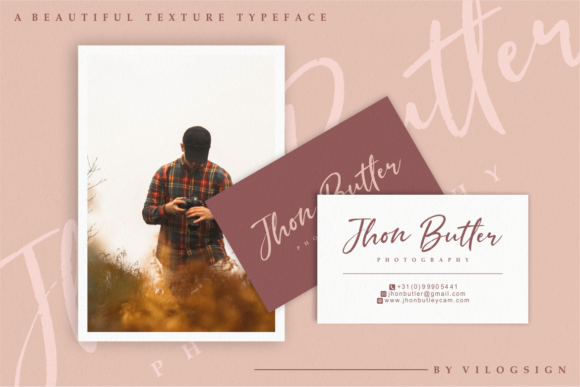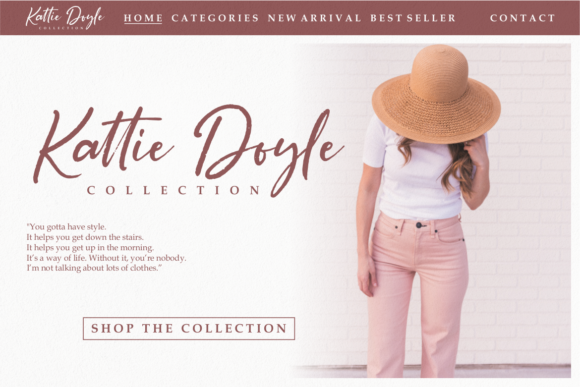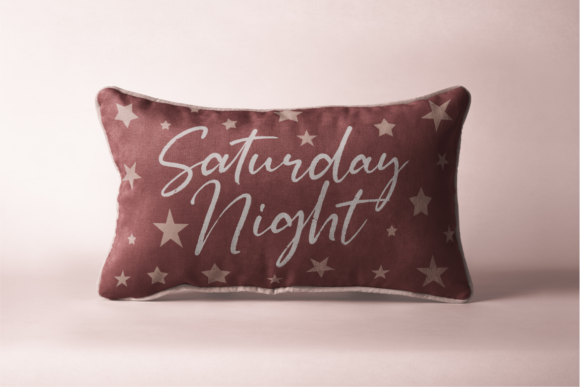
Introduction to Rollando Font
As designers, we’ve all been there – staring at a blank page, trying to find the perfect font to bring our creative project to life. And then, like a breath of fresh air, we stumble upon Rollando Font – a stunning script font that elevates any design to new heights. Inspired by classic typography, Rollando Font brings its own unique style to the table, making it the perfect addition to any high-quality design resource.
Whether you’re working on a print project or a web design, Rollando Font is sure to make a statement. And the best part? It’s available for free download, making it a valuable resource for designers of all levels. With its transparent background, Rollando Font can be easily integrated into any design, from small text blocks to eye-catching headlines. In this article, we’ll delve into the world of Rollando Font and explore why it’s a must-have for any creative project.
Key Features of Rollando Font
- High-quality design for creative projects, available for free download as a design resource.
- Unique, modern font style with a transparent background, ideal for use on various design platforms.
- Includes a wide range of characters, including uppercase and lowercase letters, numbers, and special symbols.
- Designed to be highly legible and versatile, allowing for use in a variety of creative projects, from digital to print media.
Honest Review: Rollando Font
I recently stumbled upon the Rollando Font and was impressed by its potential as a design resource for creative projects. The font offers a high-quality, sleek aesthetic that can elevate any design. One of the standout features of this font is its transparent background, making it easy to integrate with various design elements.
- ✨ High-quality design: The Rollando Font boasts a clean and modern look that is perfect for a wide range of creative projects.
- ✨ Versatile: This font can be used for both digital and print designs, making it a great addition to any design toolkit.
However, there are a few limitations to consider: ⚠️ The font may not be suitable for projects requiring a lot of customizability, as it is a relatively simple design. Additionally, the font may not be as effective when used for large blocks of text.
Overall, I’m impressed with the Rollando Font and would recommend it to designers looking for a high-quality, free design resource. While it may not be perfect for every project, it’s a great addition to any design toolkit and can be a valuable asset for creative projects requiring a modern and sleek aesthetic.
Tips for Getting the Most Out of Rollando Font
To get the most out of Rollando Font, try experimenting with different font sizes, colors, and styles to create visually appealing designs. You can also use the font in conjunction with other design elements, such as images and shapes, to add depth and interest to your creative project.
Common Use Cases for Rollando Font
Rollando Font is a versatile design resource that can be used in a variety of creative projects, including graphic design, digital art, and even web design. Its transparent background makes it easy to use in conjunction with other design elements, and its high-quality design ensures that it will look great in any application.